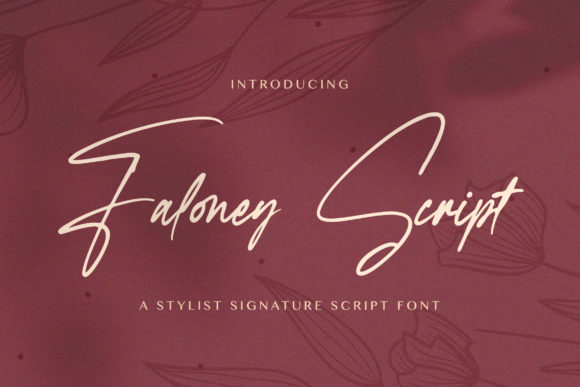
Immerse yourself in the captivating world of Faloney Script, a breathtaking calligraphy font that will ignite your imagination and elevate your designs to new heights. Crafted meticulously by StringLabs, this elegant script font embodies the essence of timeless artistry, effortlessly adding a touch of sophistication to every creative endeavor.
Faloney Script's slender, flowing letters dance across the page like a whisper of wind, carrying with them an irresistible allure that captivates the senses. Its delicate curves and intricate flourishes evoke a sense of ethereal beauty, making it the perfect choice for adding a touch of romance and enchantment to your projects.
Whether you're a seasoned graphic designer or a passionate hobbyist, Faloney Script's versatility will inspire you to create awe-inspiring designs that leave a lasting impression. Its timeless style complements a wide range of design aesthetics, from classic wedding invitations and luxurious branding to enchanting social media graphics and captivating book covers.
With its ability to elevate the ordinary and transform the mundane, Faloney Script is the ultimate font for those who seek to make a statement and enchant their audience. Its intricate details and graceful flow will add a touch of magic to your designs, leaving your audience spellbound.
So, delve into the enchanting world of Faloney Script and unleash your creativity. Experience the joy of crafting designs that captivate, inspire, and leave an indelible mark on the hearts of those who behold them.